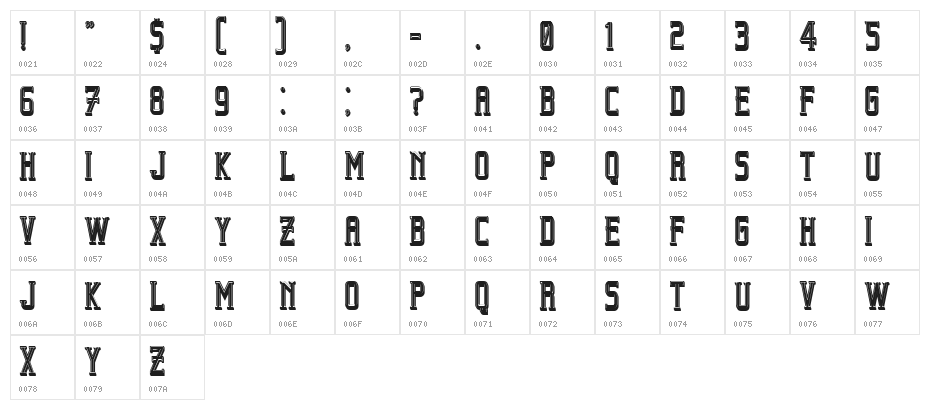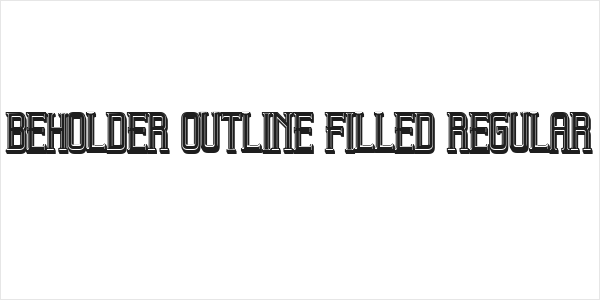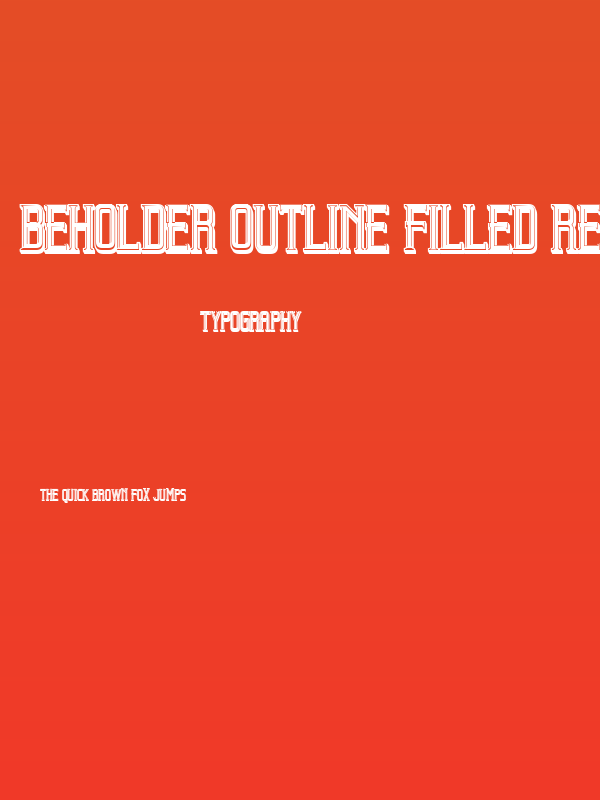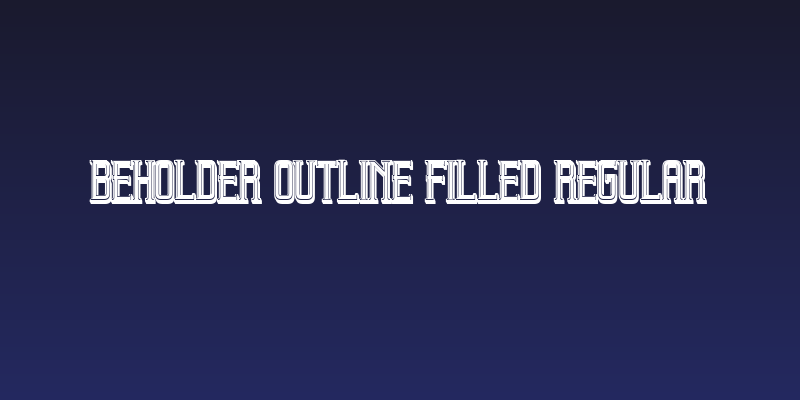
Beholder Outline Filled Regular Font
Beholder Outline Filled Regular Description
This typeface features a bold, outlined style with a filled interior, creating a striking and modern appearance. The characters are tall and narrow, emphasizing verticality and providing a sense of strength and stability. The outlines are thick, adding a layer of depth and dimension to each letter and number. The font maintains a consistent width across all characters, ensuring uniformity and balance. Its geometric and structured design makes it highly legible, even at smaller sizes. The overall aesthetic is both contemporary and versatile, suitable for a variety of design applications.
| Proposed Projects | Ideal for branding, posters, headlines, and any design needing a bold, modern touch. |